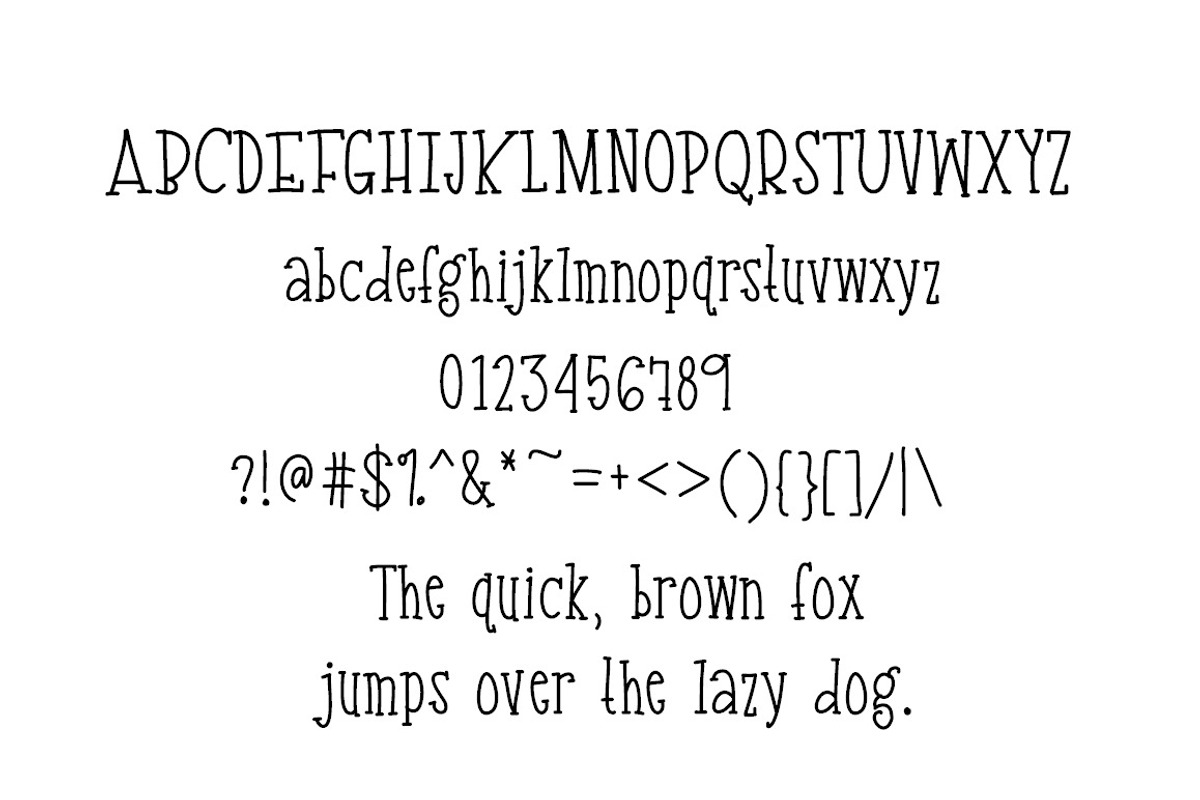
Regular Buffalo- Handwritten Font
Regular Buffalo- Handwritten Font by Sabrina Schleiger Design is a font selected for branding, posters, packaging, typography.
- It includes Latin extensions to support most European languages.
Why Regular Buffalo- Handwritten Font is worth a look
Regular Buffalo- Handwritten Font by Sabrina Schleiger Design fits naturally into Branding, posters, packaging, typography.